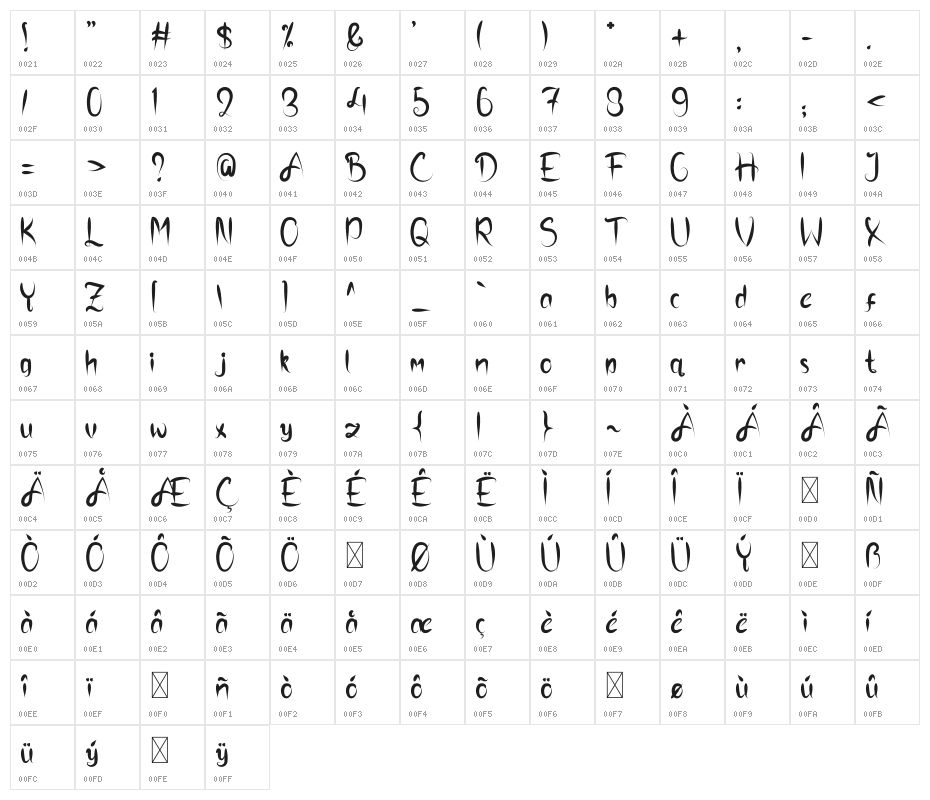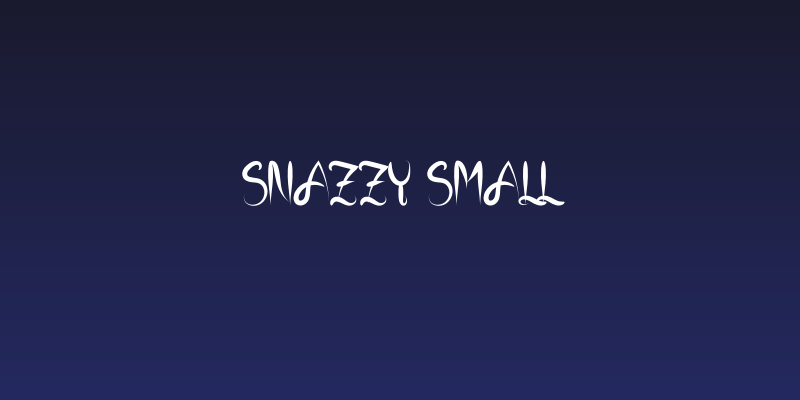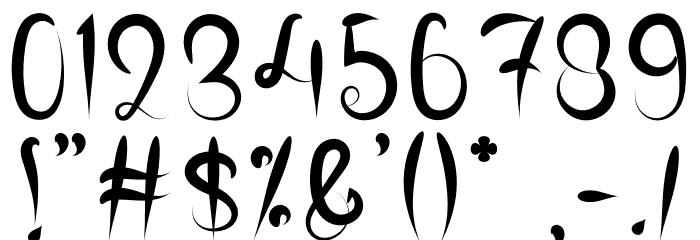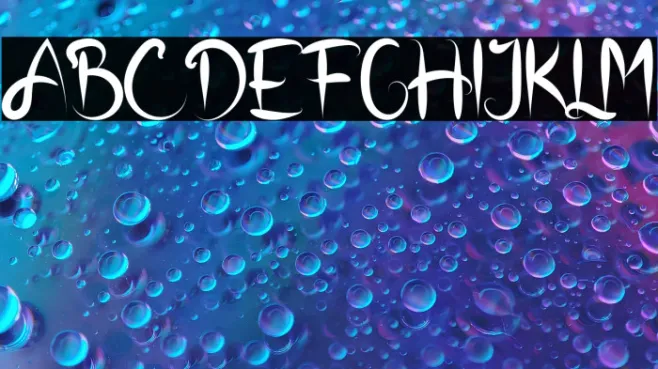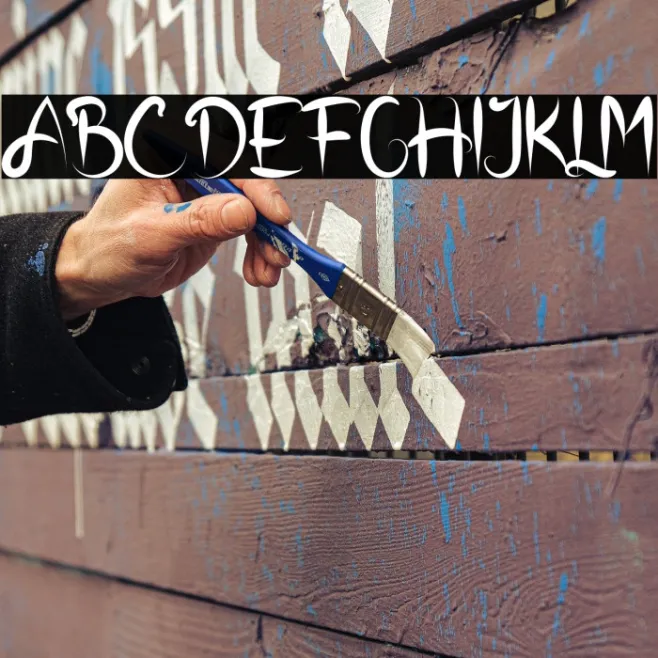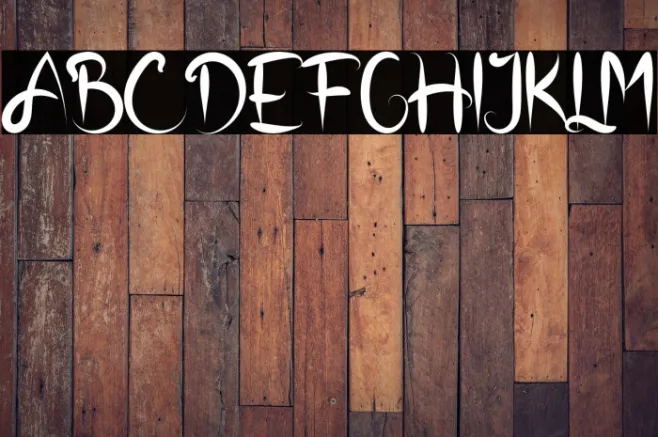
Snazzy Small Font
Snazzy Small Description
This font features a whimsical and artistic style with flowing, exaggerated curves and strokes. The uppercase letters are bold and dynamic, with unique flourishes that give each character a distinct personality. The lowercase letters maintain the playful essence, with a slightly more restrained design. Numbers and special characters follow the same creative approach, ensuring consistency throughout. The font's overall appearance is lively and expressive, making it ideal for projects that require a touch of creativity and flair.
| Use Case | Headlines, Logos, Artistic designs |
| Proposed Projects | Ideal for creative projects such as invitations, posters, branding, and artistic designs. |